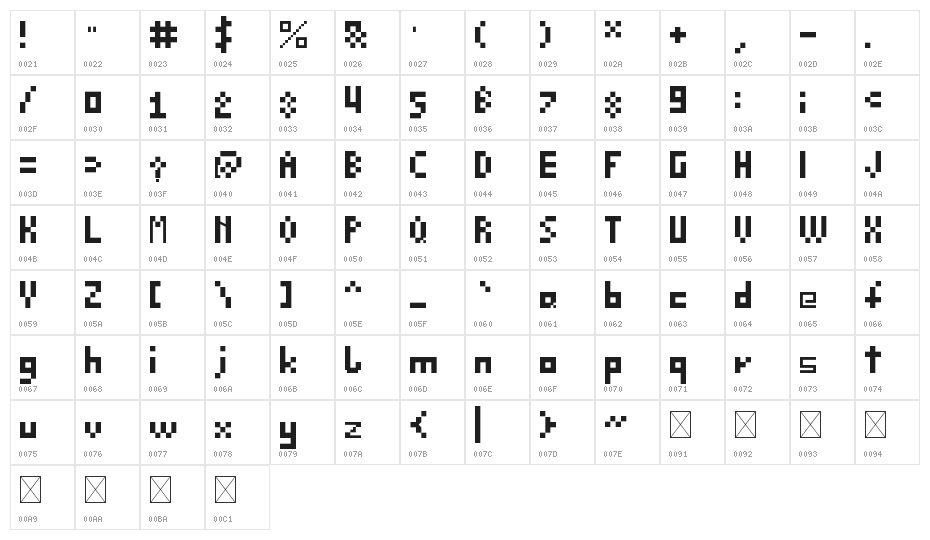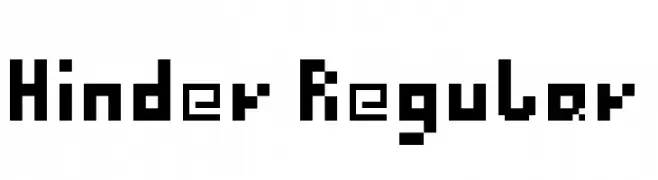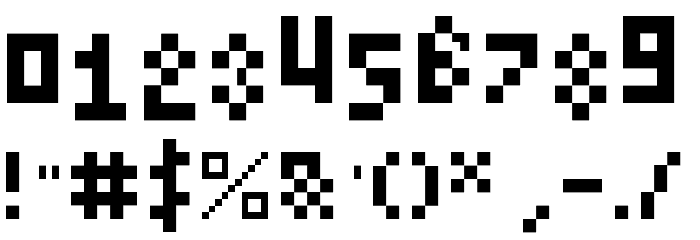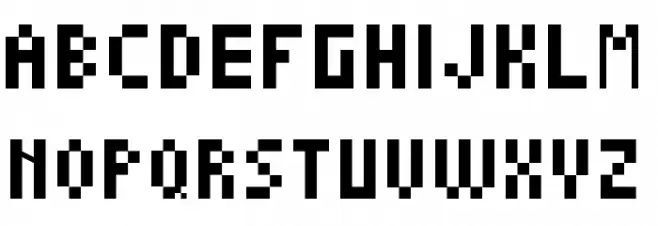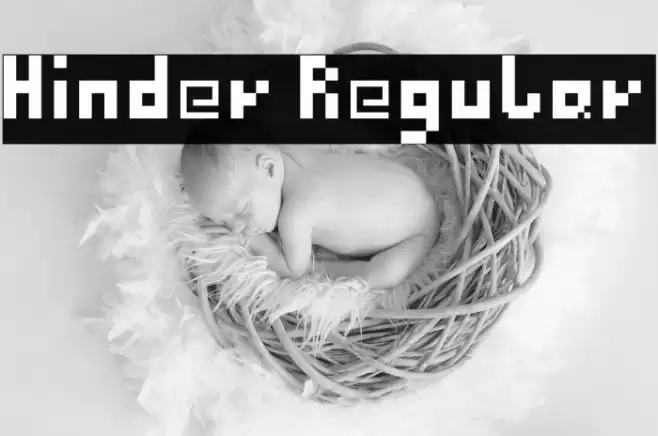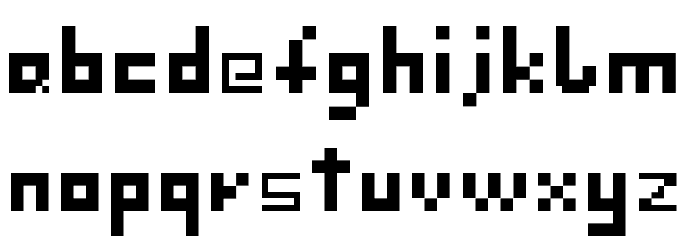
Hinder Regular Font
Hinder Regular Description
This font features a bold, pixelated design reminiscent of classic video game graphics. Each character is constructed with a blocky, grid-like structure, giving it a distinctly digital and retro aesthetic. The uppercase and lowercase letters maintain a consistent height, emphasizing uniformity and simplicity. Numbers and special characters follow the same pixelated style, ensuring a cohesive look across all text. The font's geometric shapes and sharp edges make it highly legible, even at smaller sizes, while its unique style adds a playful and nostalgic touch.
| Overall Style | Retro, Digital |
| Proposed Projects | Ideal for video game designs, retro-themed posters, digital art projects, and any creative work that seeks to evoke a sense of nostalgia. |